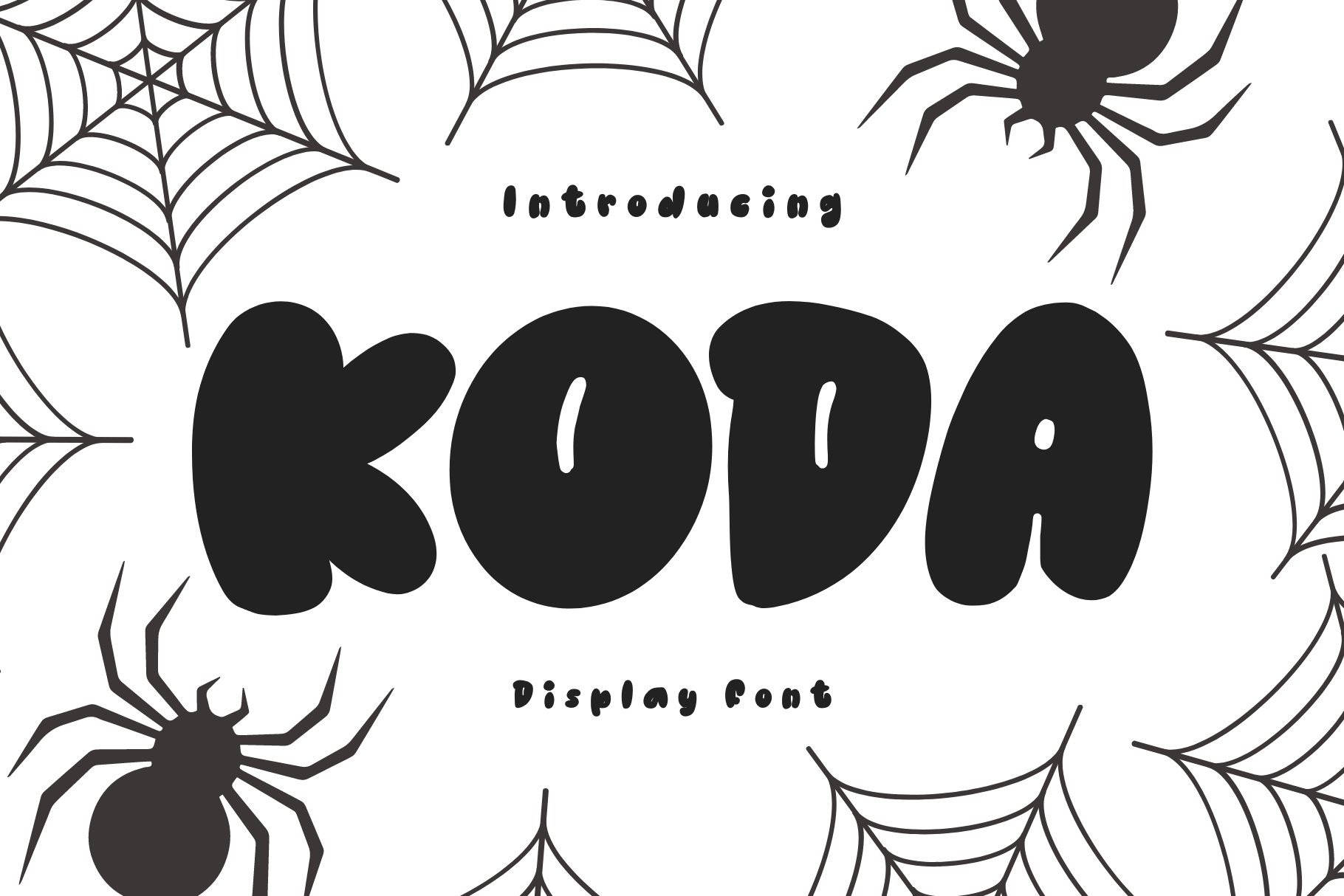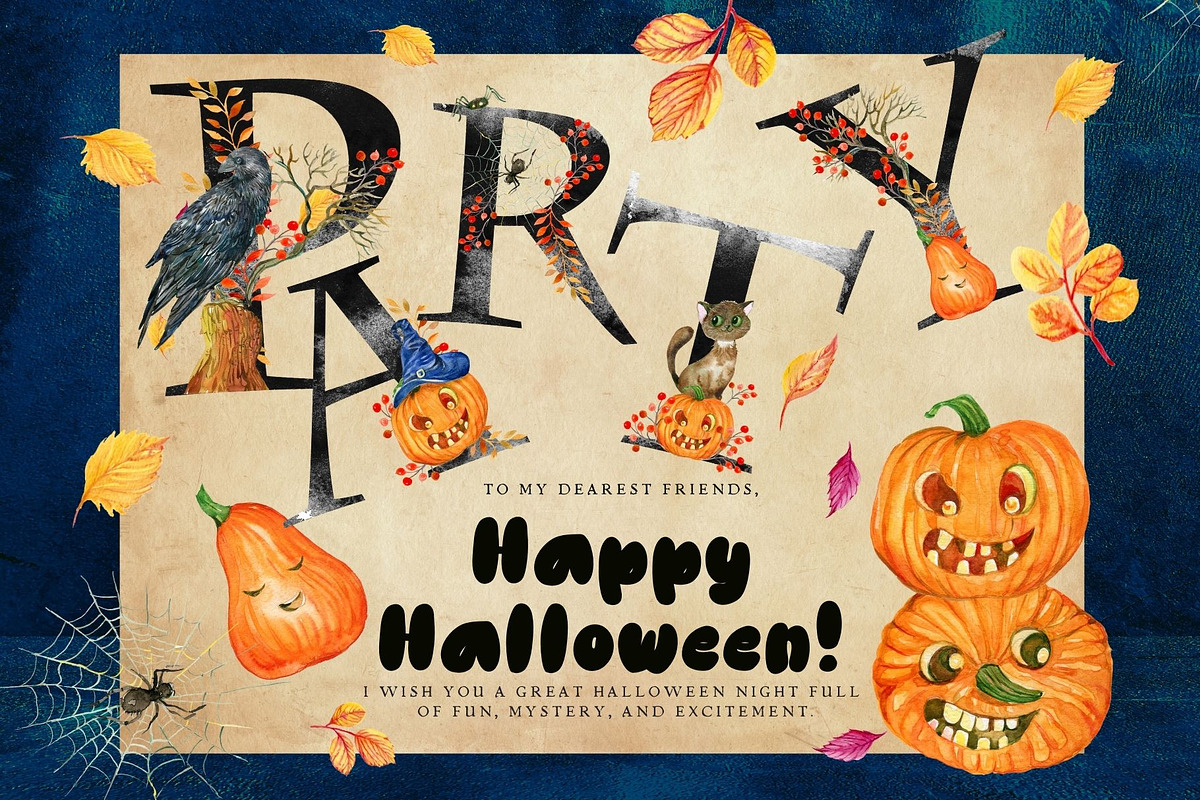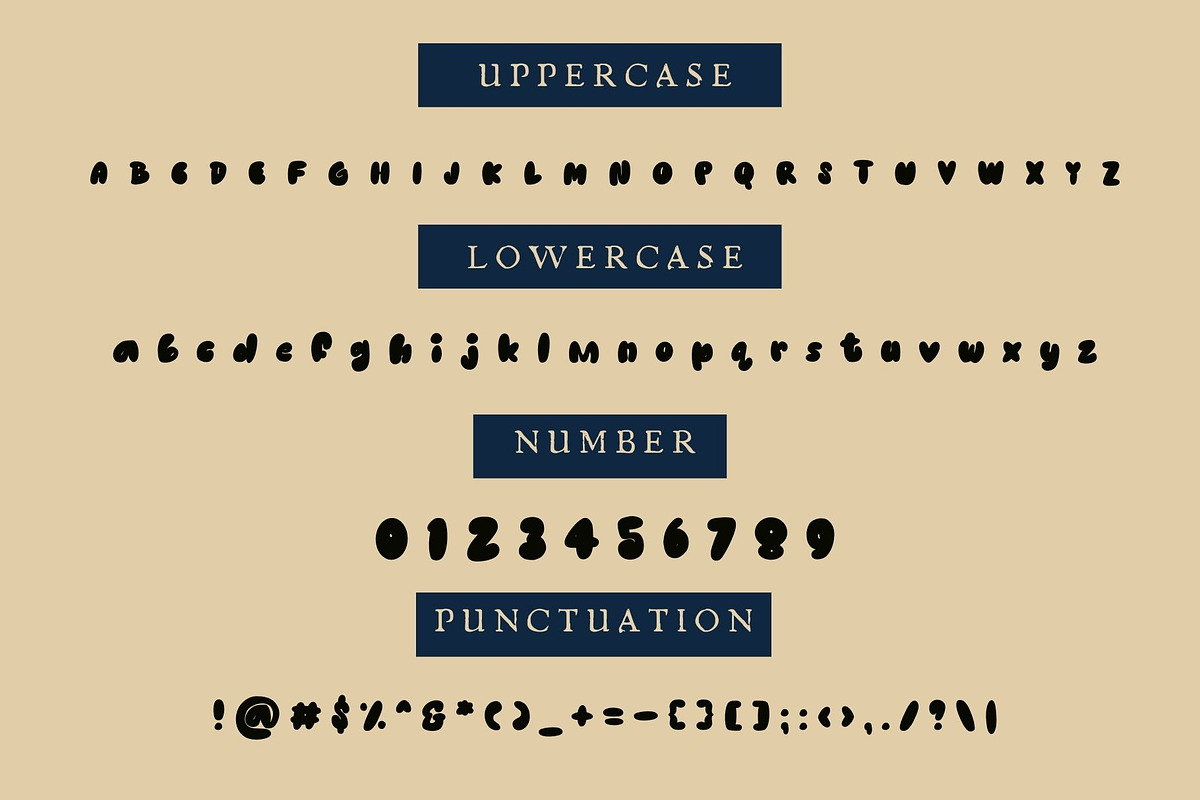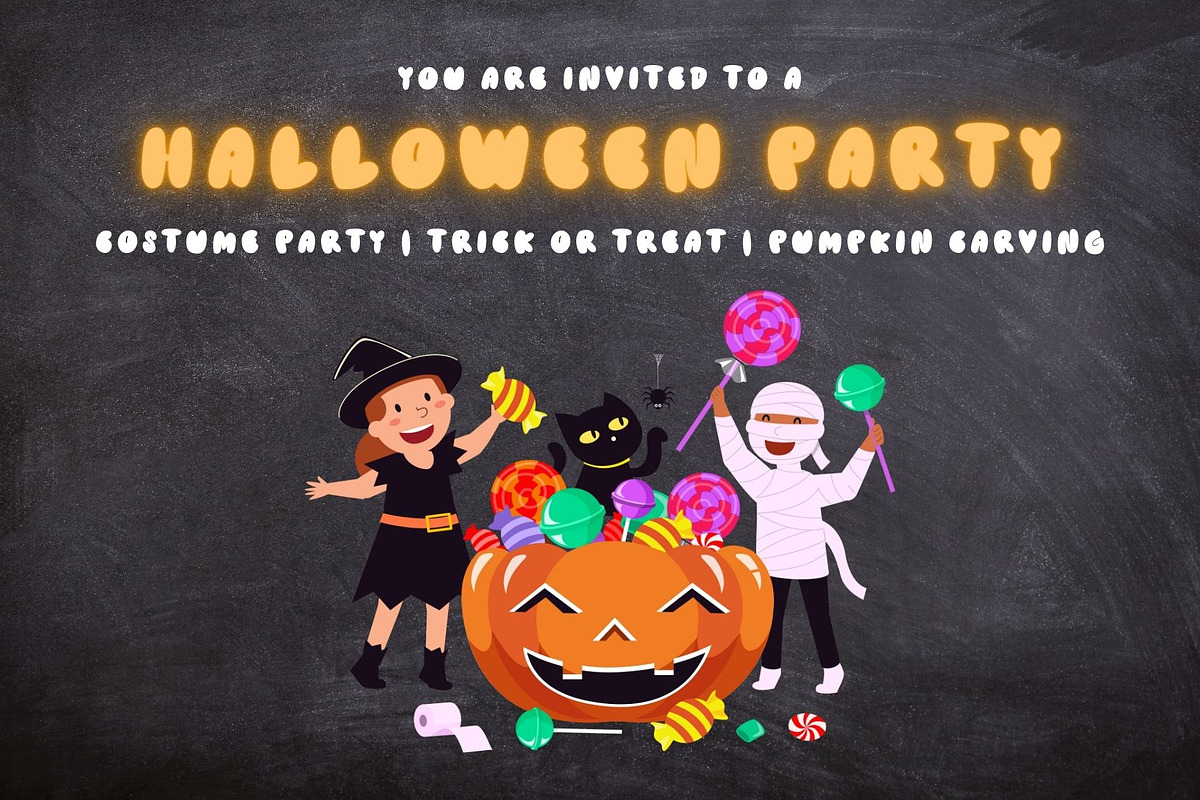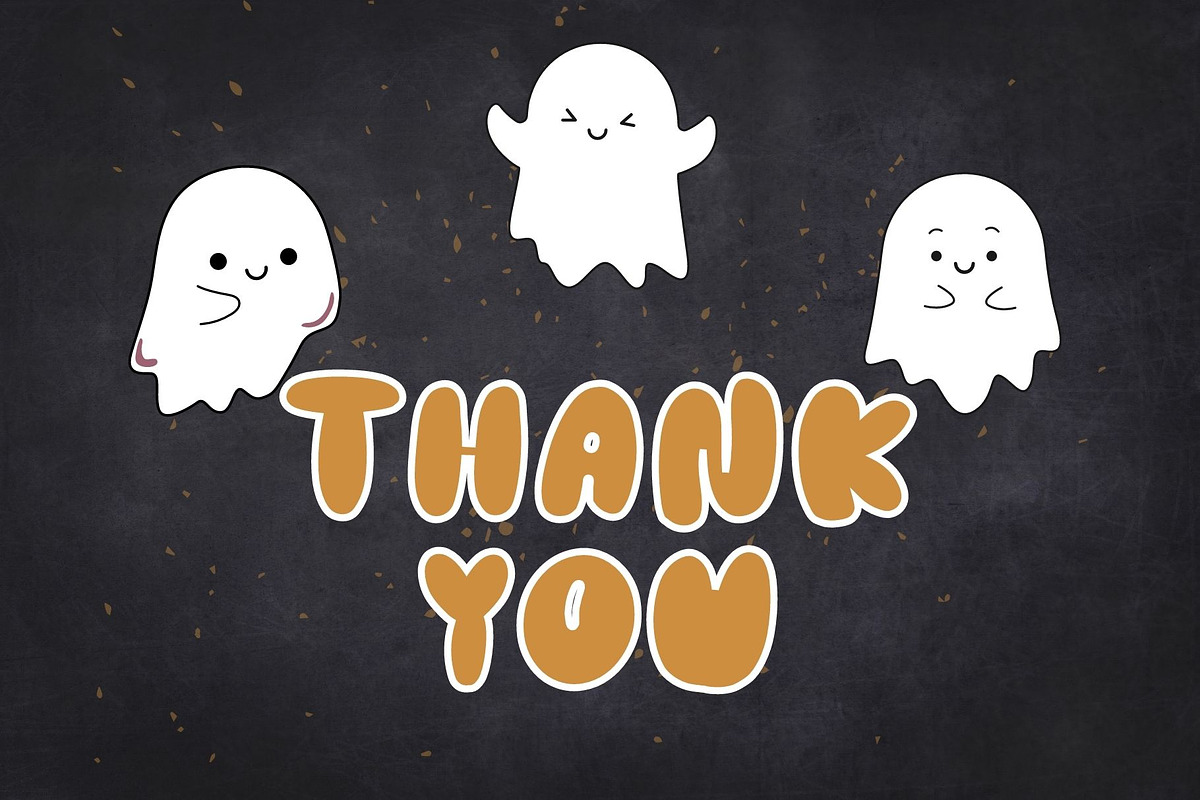
Koda is a cool retro display font
Koda is a cool retro display or decoraive fonts. It embodies playfulness and authenticity and is the perfect choice for all your favorite projects, or even for blog posts, logos, branding, ads, invitations, greeting cards, planners, photo albums, decorations, and much more. Add it to any of your designs, and enjoy the results!